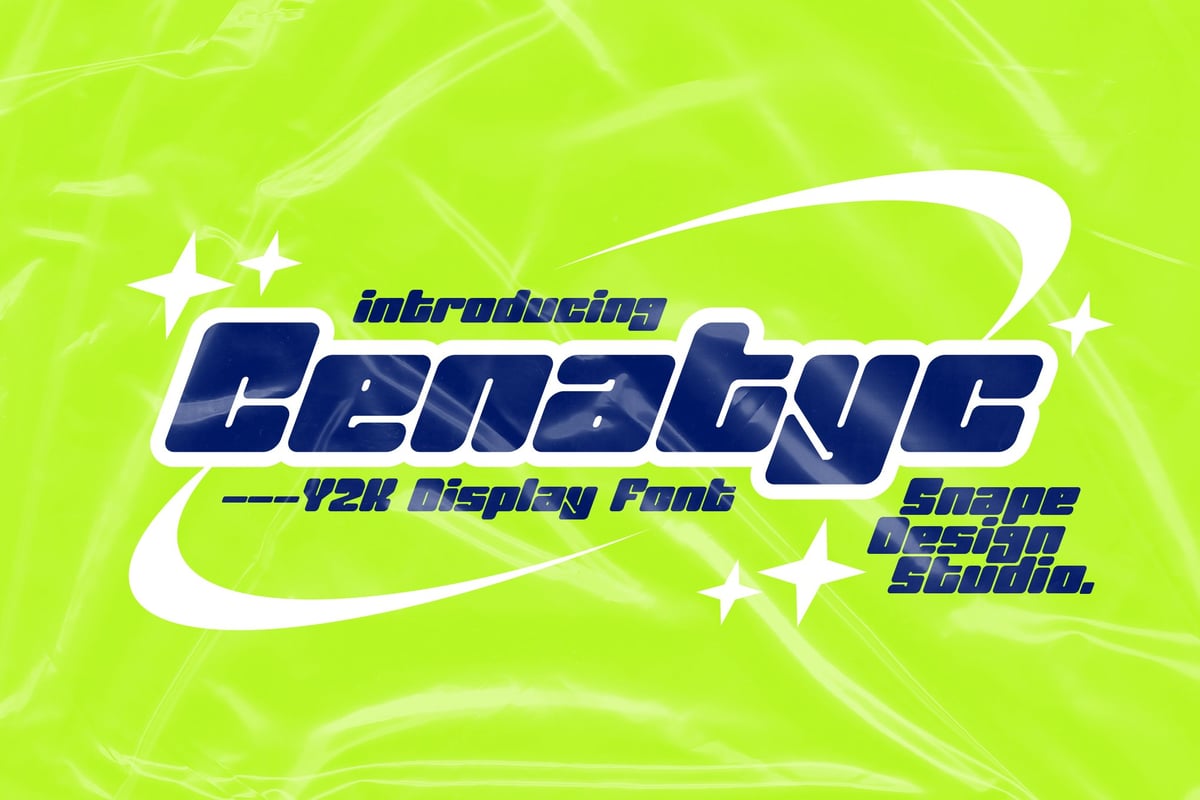
Cenatyc - Y2K Font
Transport your designs to the digital millennium with Cenatyc, a bold Y2K-inspired futuristic font. Heavily influenced by the Y2K design era through music and pop culture, this typeface perfectly captures the essence of technology, digital themes, and space galaxy aesthetics. The font's distinctive character set brings an authentic retro-futuristic vibe to any creative project. Cenatyc excels in a wide range of applications including movies, documentaries, films, logos, posters, games, book cove...